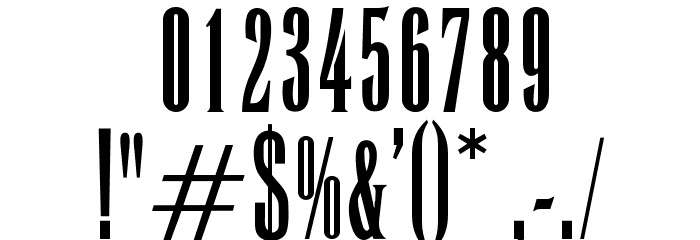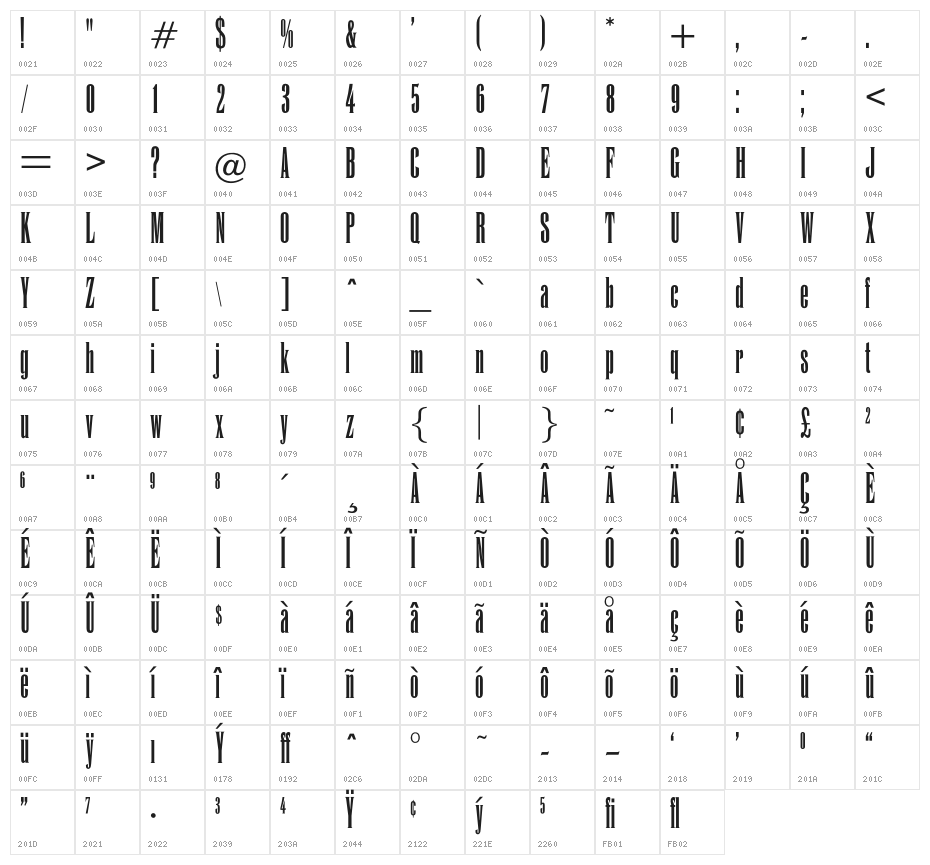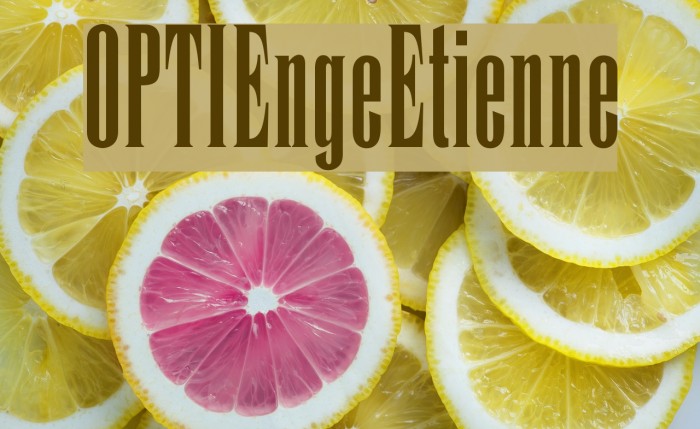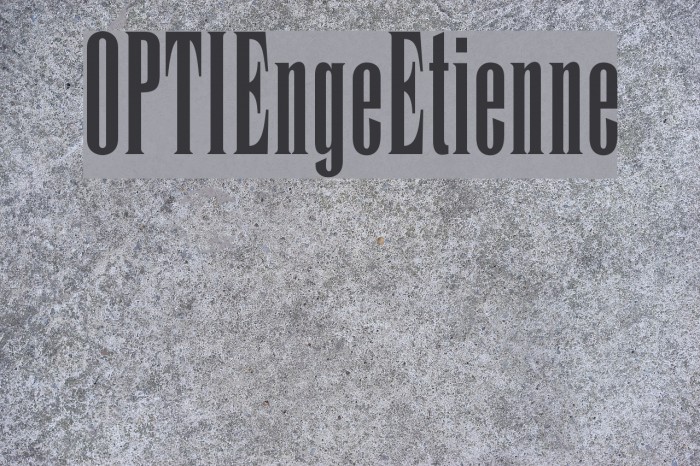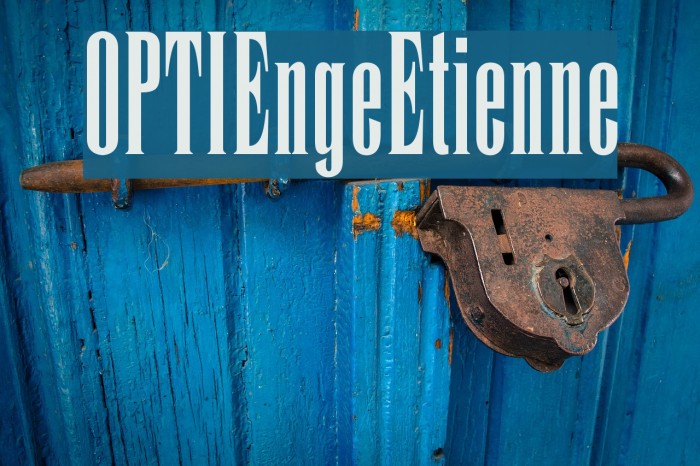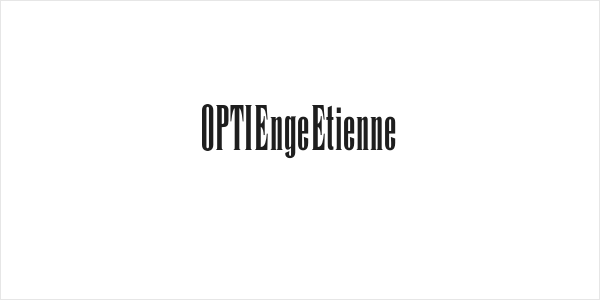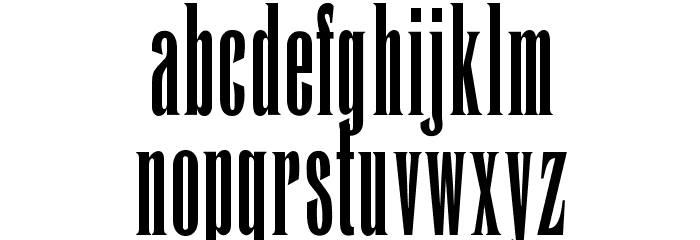
OPTIEngeEtienne Font
OPTIEngeEtienne Description
This font features a bold and striking design with tall, narrow characters that convey a sense of elegance and authority. The uppercase letters are particularly elongated, giving them a commanding presence, while the lowercase letters maintain a consistent style that complements the uppercase. The numbers and special characters are designed with the same attention to detail, ensuring a cohesive look across all text elements. The font's high contrast between thick and thin strokes adds to its dramatic appearance, making it suitable for impactful headlines and titles. Its decorative nature is balanced by a classic serif structure, which provides readability and sophistication.
| Proposed Projects | Ideal for use in magazine headlines, posters, book covers, and branding materials where a strong visual impact is desired. |